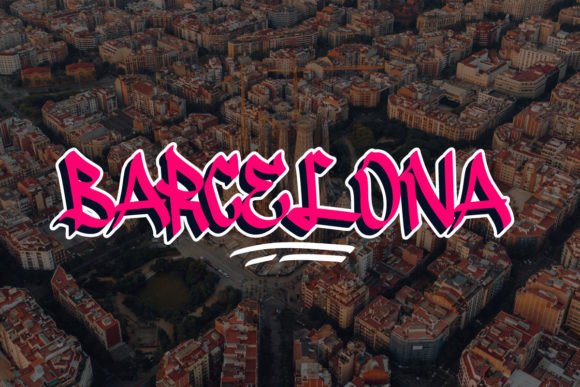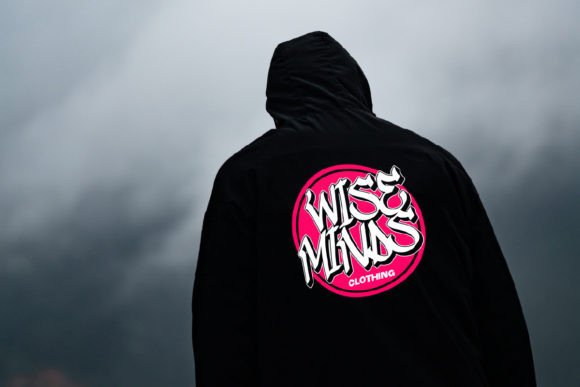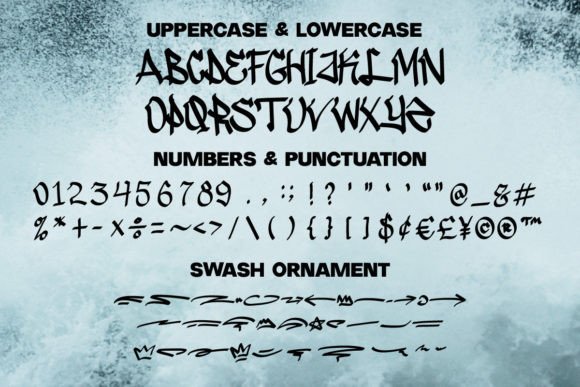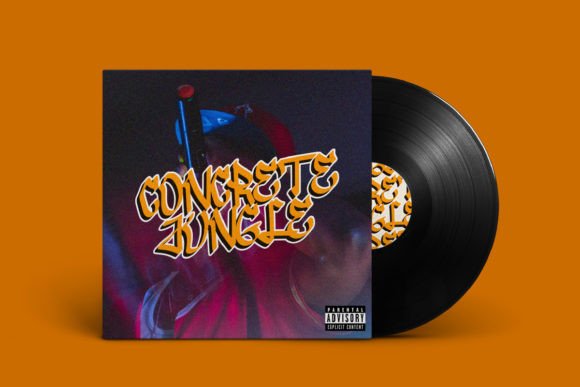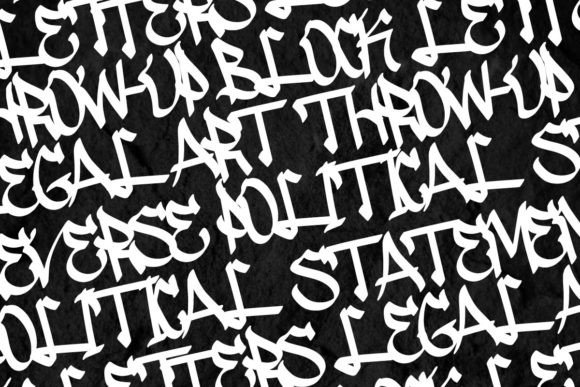
The Art of Typography: Bringing Your Creative Vision to Life
Remember the rush of excitement when you stumbled upon the perfect font for your project? The one that made your design pop, and your message shine through? For many designers, that moment is what drives them to create something truly special. It’s a moment that can be fleeting, but the impact it has on our work can last a lifetime.
One such font that can evoke that sense of excitement is the Airosol Spray Graffiti Font. This unique font is designed to add a touch of strength and character to your designs, making it perfect for headlines and titles, as well as everyday text. Its versatility and ease of use make it a valuable asset for designers looking to add a bit of edge to their work.
Airosol Spray Graffiti Font Key Features
- Font Style: Airosol Spray Graffiti Font is a bold, graffiti-style font with a distressed look, perfect for adding a touch of edginess to designs.
- Unique Characteristics: The font features a unique, hand-sprayed look with a mix of bold lines and subtle texture, giving it a truly authentic graffiti feel.
- Legibility: Despite its bold appearance, the font is still highly legible, making it suitable for use in a variety of contexts, from signage to editorial design.
Airosol Spray Graffiti Font Review
I’ve had the chance to work with the Airosol Spray Graffiti Font, and I must say it’s an interesting choice for designers. ✨ The font does have some great qualities that make it stand out, such as its unique graffiti-style aesthetic and a wide range of customization options. It’s perfect for projects that require a bold, edgy look. The font is also highly legible, even at smaller font sizes, which is a major plus.
However, there are some limitations to consider. ⚠️ The font can be quite heavy-handed, and some users may find it overwhelming. Additionally, the font’s customization options can be a bit overwhelming, especially for beginners. The font also lacks support for certain languages, which may be a concern for designers working on international projects.
- Unique graffiti-style aesthetic
- Wide range of customization options
- Highly legible, even at smaller font sizes
- Font can be too heavy-handed for some users
- Customization options can be overwhelming
- Lacks support for certain languages
Overall, I’d say the Airosol Spray Graffiti Font is a solid choice for designers looking for a bold, edgy font. While it has some limitations, its unique aesthetic and customization options make it a great option for the right project.
Some tips for getting the most out of the Airosol Spray Graffiti font include:
Experimenting with different colors and styles to achieve a unique look.
Using the font in combination with other creative elements, such as textures and images.
Creating custom effects and textures using the brush tool in Adobe Photoshop or Illustrator.
Common use cases for the Airosol Spray Graffiti font include:
Street art and graffiti designs.
Urban and edgy marketing materials.
Graphic novels and comic books.